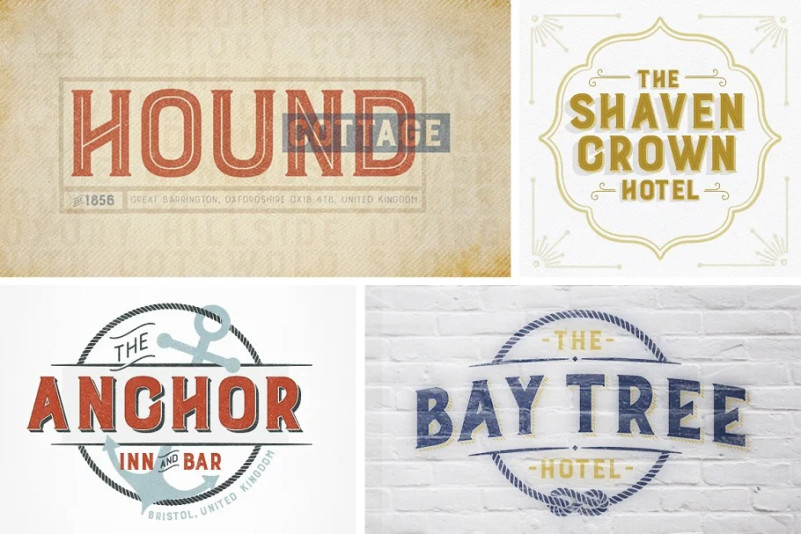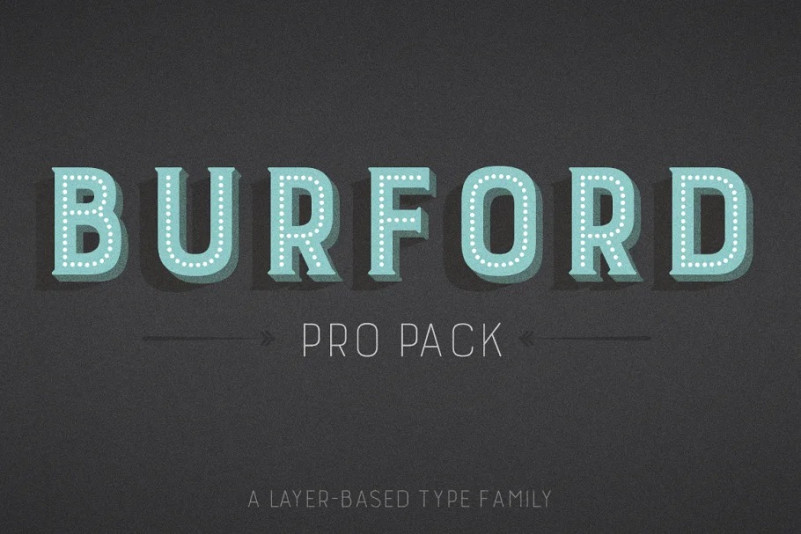
Burford Font
Burford Font is a font family that was sketched while traveling through Europe. During my time in Amsterdam, I found myself spending 2-3 hours per day sketching characters inspired by all the incredible typography I had seen. Back in the states I digitalized Burford and decided it would make a beautiful layer-based font.
Burford Pro package was created for users who work with premiere design programs (Illustrator, InDesign, Photoshop, etc.) The pack comes with all 18 layering fonts including 5 base layers, 3 top layers, 5 bottom layers and 2 sets of graphic elements. They are strategically made to build on top of each other, creating a cohesive and easy-to-use layer-based family. Each font also comes with a set of Stylistic Alternatives for letters A C E F G H P Q R. You can access these using using the Opentype Panel (WINDOW – TYPE – OPENTYPE) and pressing the button ‘aa’. The Pro pack includes webfonts as well.
The Burford Extras set uses all basic keyboard characters – around 100 total elements per set. They are designed to go specifically with Burford and complement its varying styles perfectly. The set includes: banners, borders, corners, arrows, line breaks, catchwords, anchors and many more!